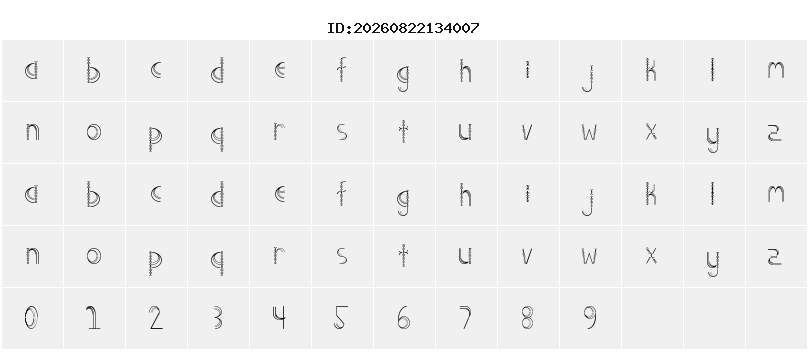
Screech Preview
About Screech.ttf
Screech.ttf is a modern, elegant sans-serif font designed for ultimate readability and visual harmony. Perfect for branding, headlines, web design, and print materials.